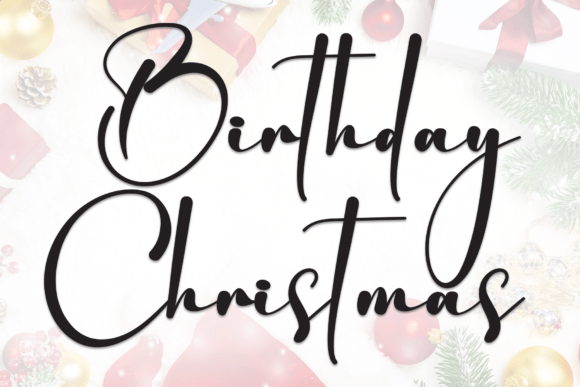
The Magic of Birthday Christmas Font: A Designer’s Delight
I’ll never forget the time I was working on a Christmas project for a client, and I just couldn’t find the right font to bring the design to life. The brief was simple: create a festive and eye-catching logo that would make the client’s brand stand out. But, as I scrolled through font after font, I realized that finding the perfect one was like searching for a needle in a haystack. That was until I stumbled upon the Birthday Christmas Font! ✨
As a designer, I’m always on the lookout for fonts that can elevate my work and make it more engaging. The Birthday Christmas Font has become a staple in my font library, and here’s why:
• ✨ Unique and Beautiful Touch: Every letter has a distinctive, hand-crafted feel that adds a personal touch to any design.
• ✅ Ease of Use: The font is surprisingly versatile and works well for both headings and body text.
• 💫 Festive and Timeless: The font’s warm and cozy feel makes it perfect for Christmas and holiday-themed designs, but it’s also elegant enough for year-round use.
• ⚠️ Limited Multilingual Support: While the font covers the basic Latin character set, it may not be the best choice for designs that require extensive multilingual support.
• 🤔 Occasional Kerning Issues: As with any font, you might encounter some kerning issues, especially when using the font at smaller sizes.
The Story Behind the Font: A Designer Inspiration
The Birthday Christmas Font was created by a talented designer who wanted to capture the magic and wonder of the holiday season. Inspired by vintage Christmas cards and festive decorations, the designer crafted a font that’s both timeless and elegant. The result is a font that’s perfect for designers, crafters, and creative hobbyists who want to add a personal touch to their holiday designs.
Is the Birthday Christmas Font suitable for body text? While the font is primarily designed for headings, it can be used for body text in certain contexts, such as holiday-themed designs or creative projects.